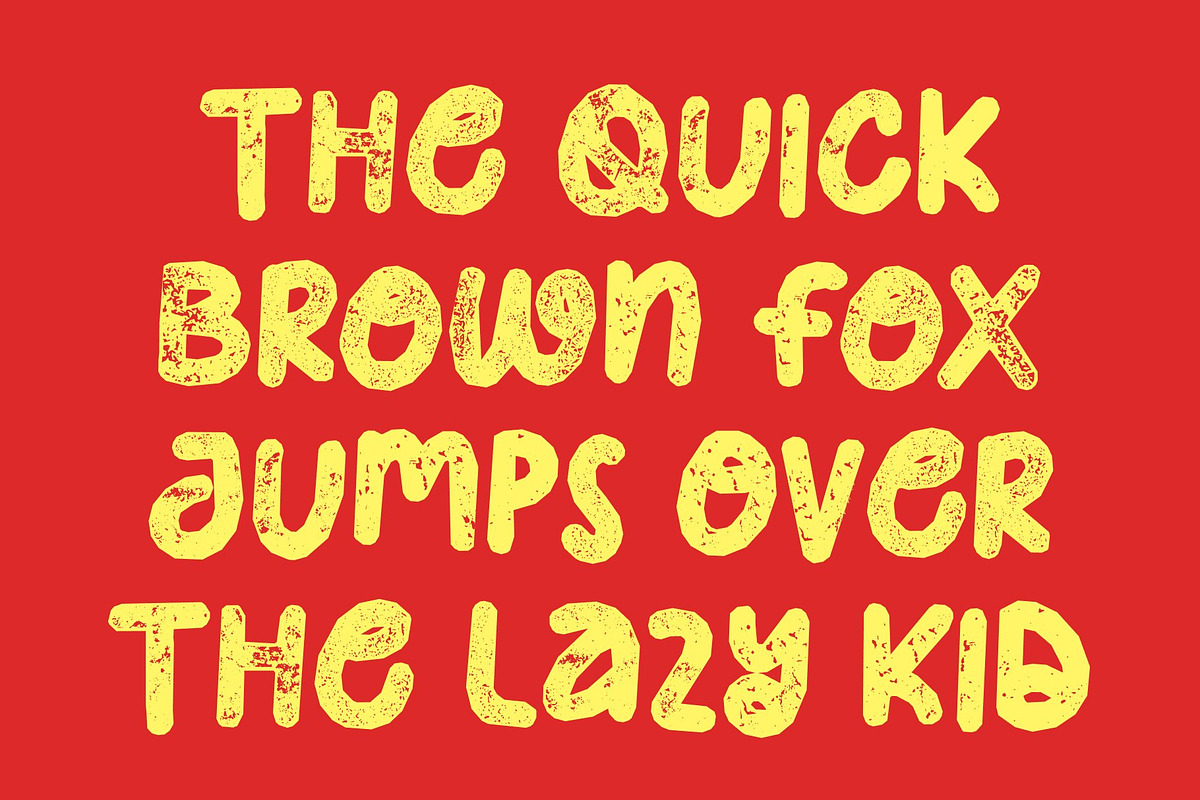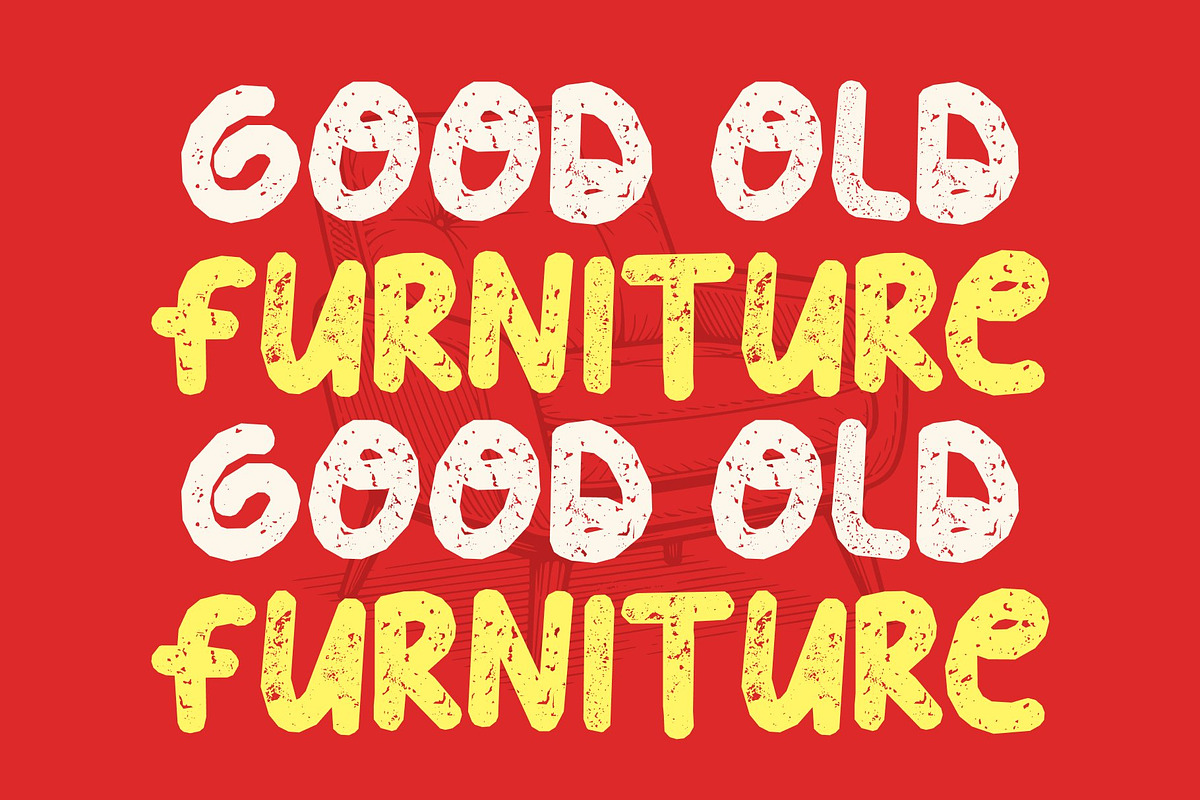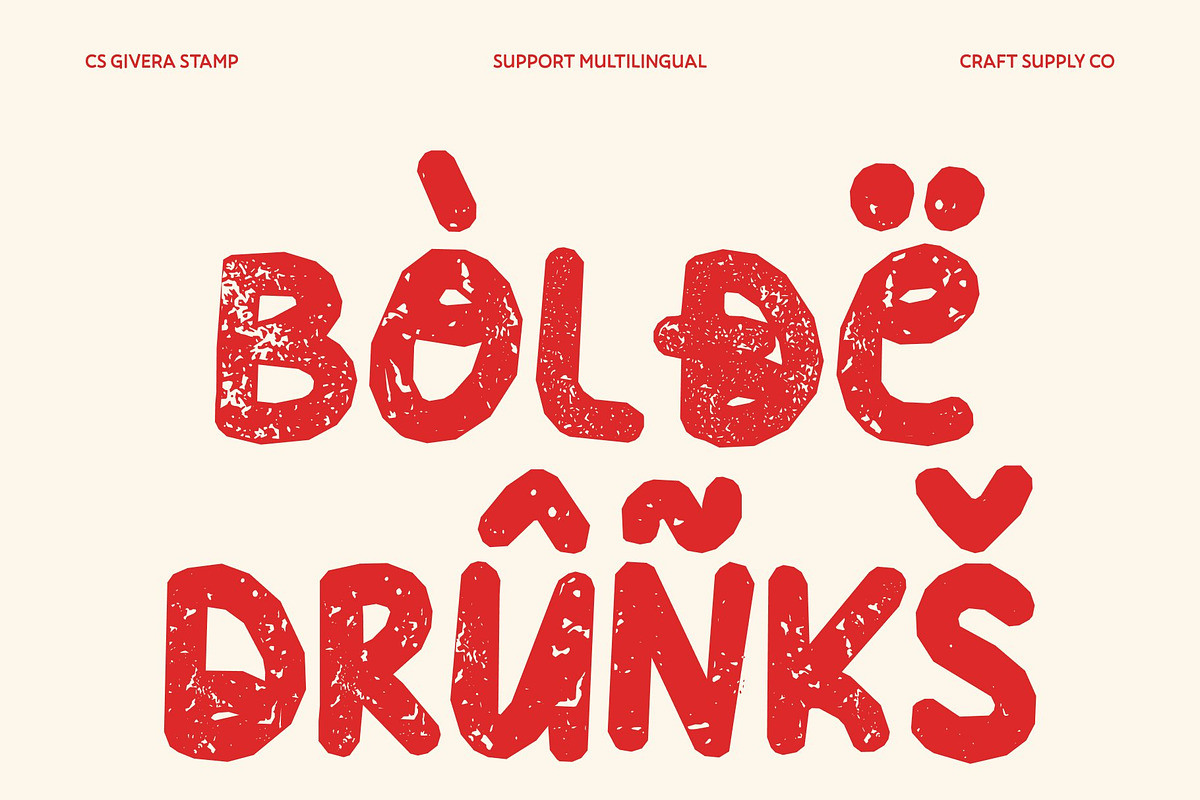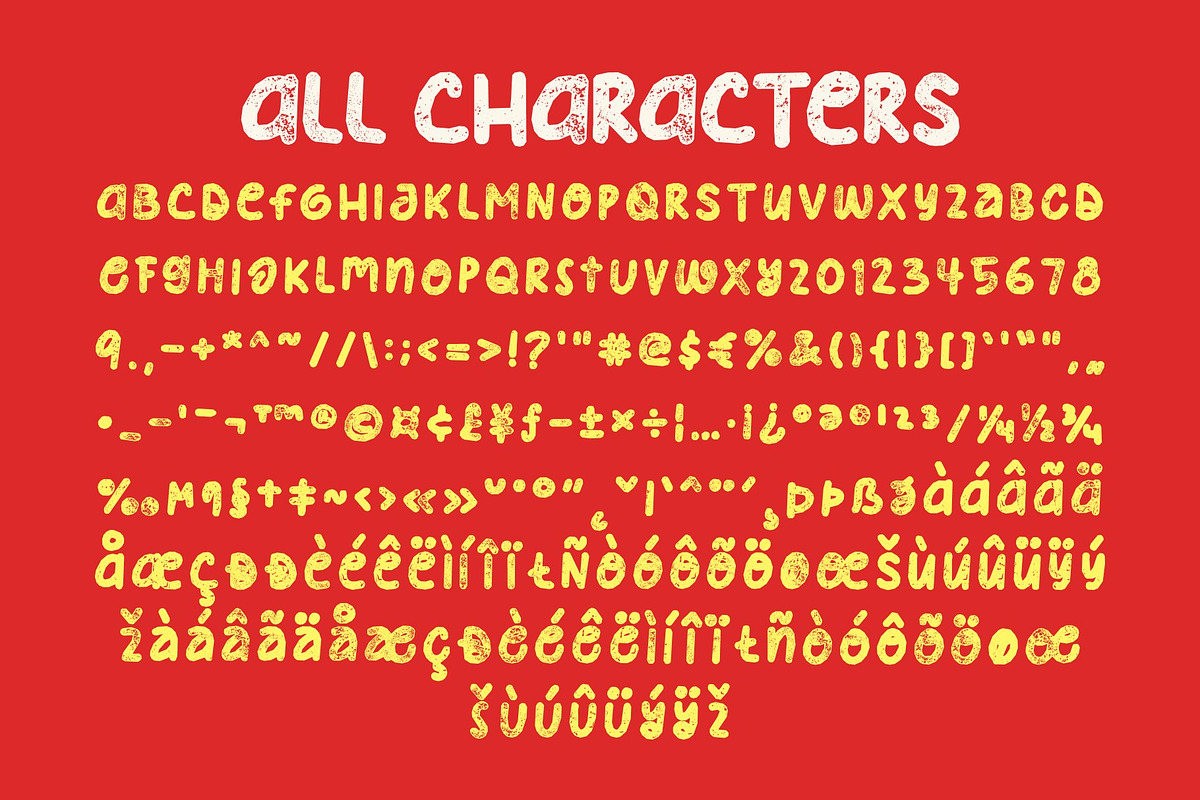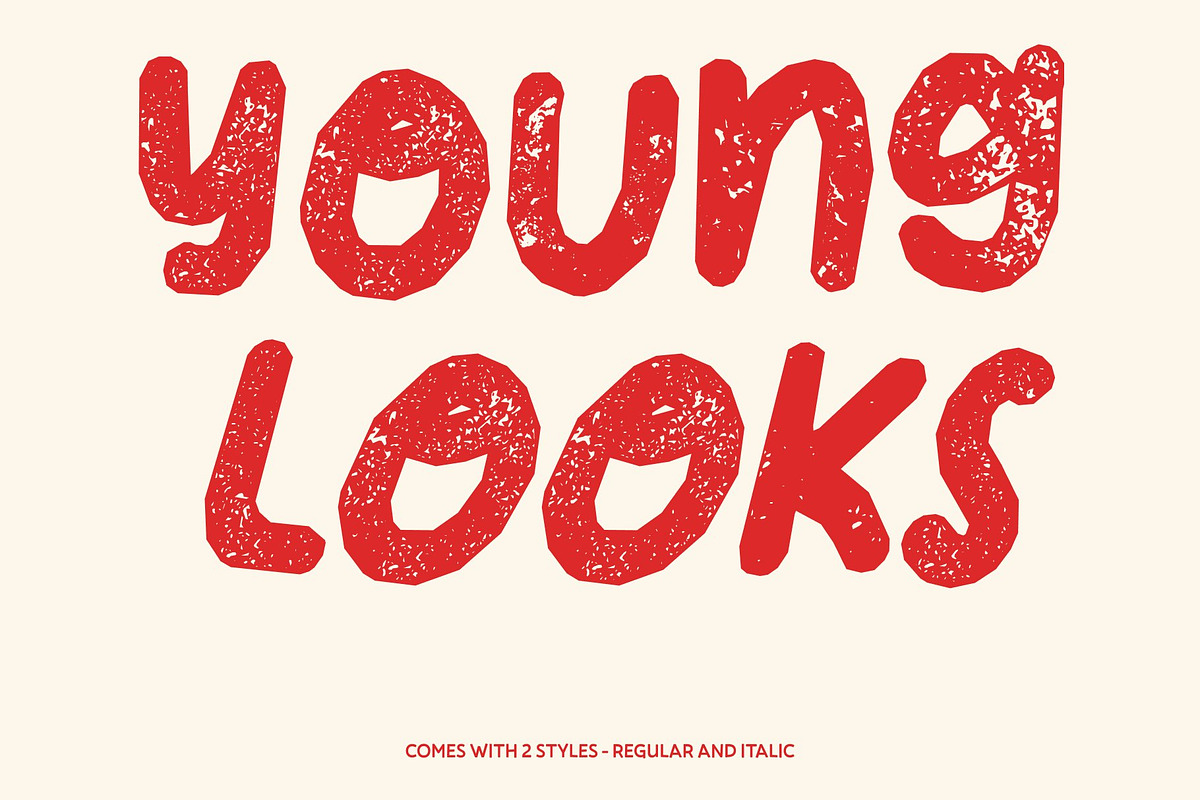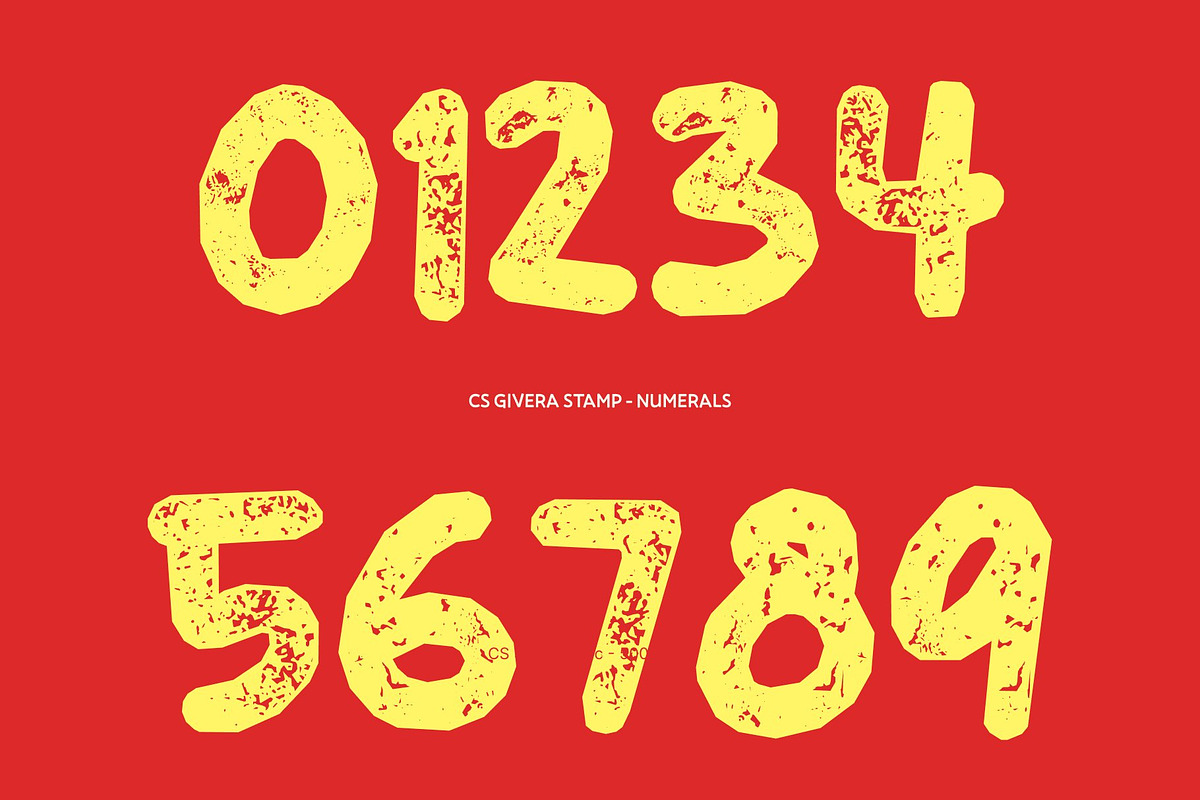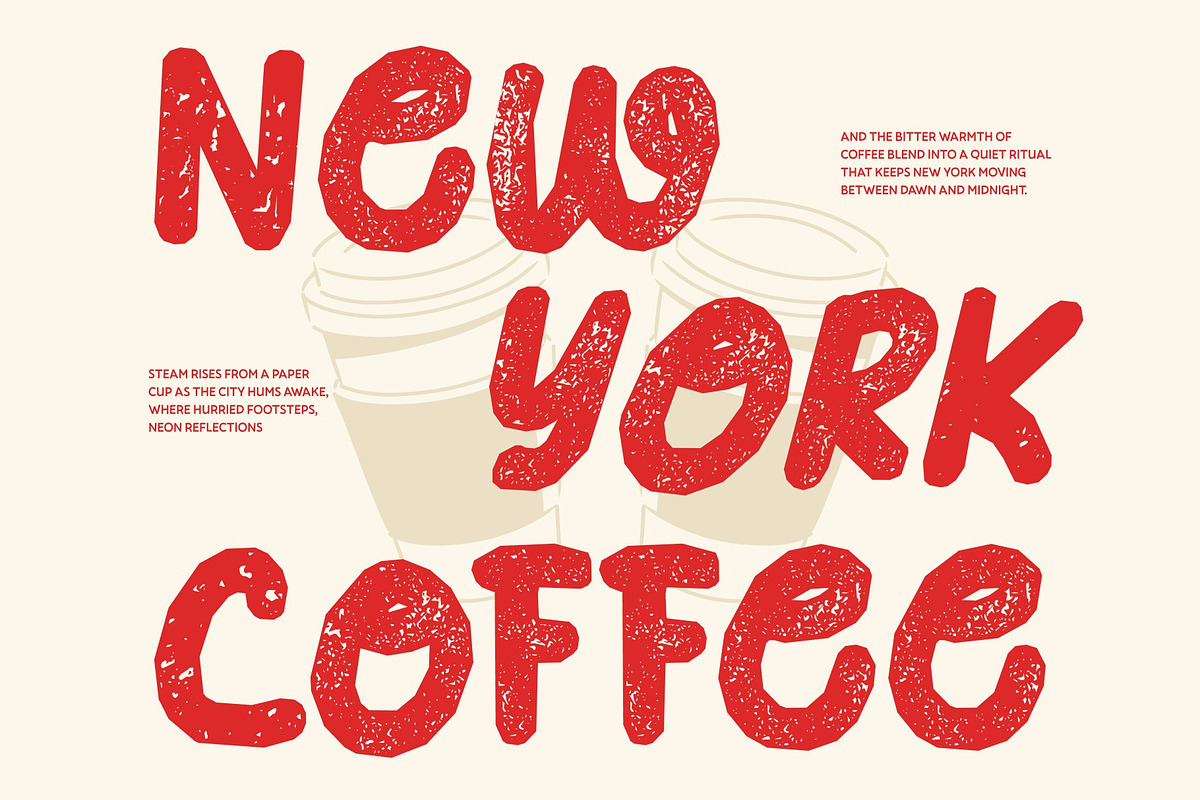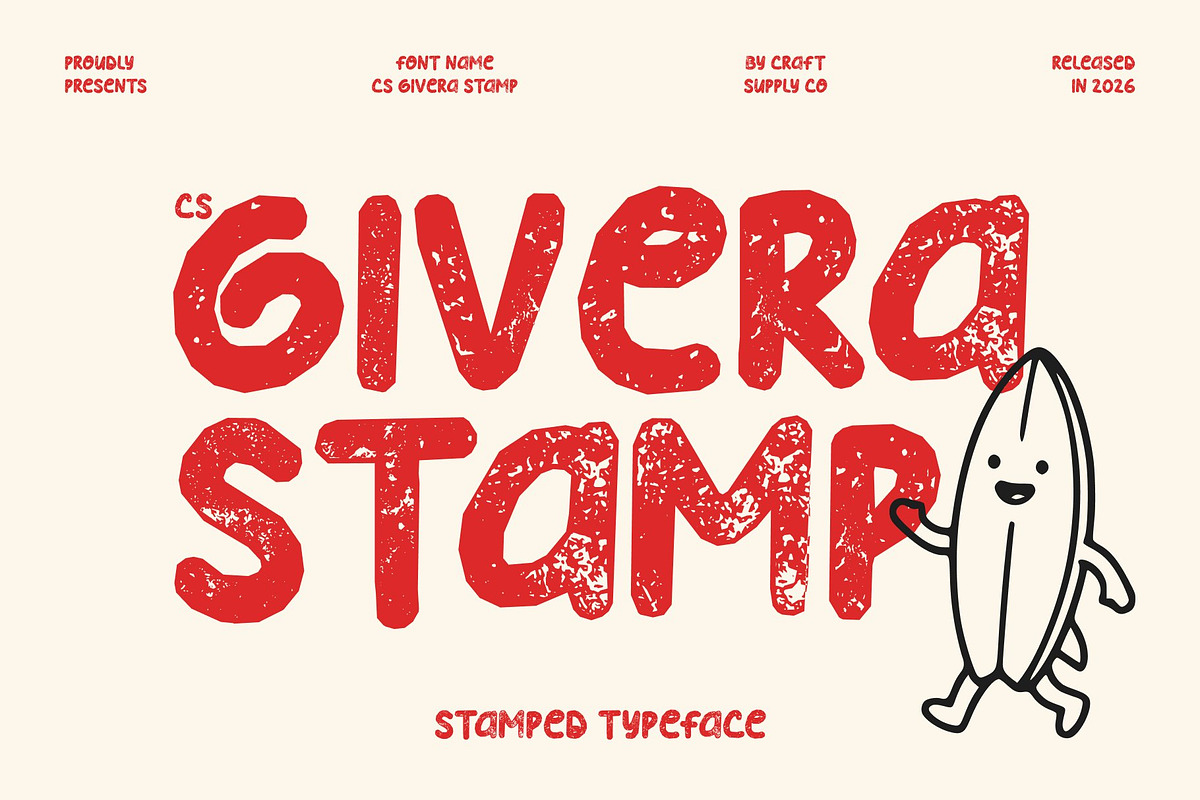
CS Givera Stamp
CS Givera Stamp – Playful Fun Font with Bold, Friendly Vintage Energy
Bold Strokes with Cheerful Personality This is a lively display font designed to bring playful energy and warmth to every project. Its bold strokes and expressive shapes create an inviting presence, now enhanced with a subtle stamp texture that adds a handcrafted, nostalgic touch.
Friendly Shapes with Handmade Character Rounded, welcoming letterforms give the font a soft and approachable personality. The stamped finish introduces gentle imperfections that make each character feel more human, warm, and full of charm.
Energetic Style with Vintage Texture The energetic rhythm and dynamic forms make text feel vibrant and full of life. The stamp effect adds depth and an ink-pressed look inspired by traditional print techniques, blending playful modern design with timeless character.
Perfect for Youthful and Creative Projects This font shines in youth branding, greeting cards, packaging, posters, casual branding, and social media graphics. It’s ideal for cheerful messages, fun logos, and uplifting visual storytelling that feels bright, friendly, and full of personality.
CS Givera Stamp Regular
CS Givera Stamp Italic